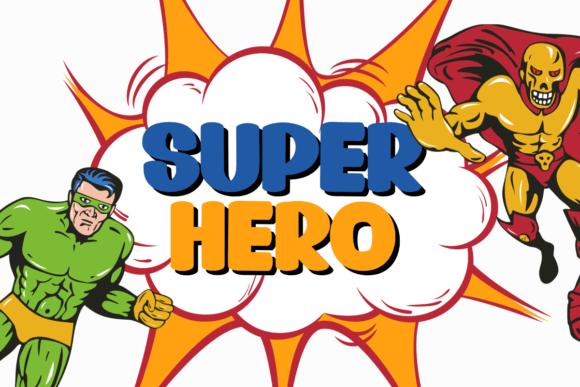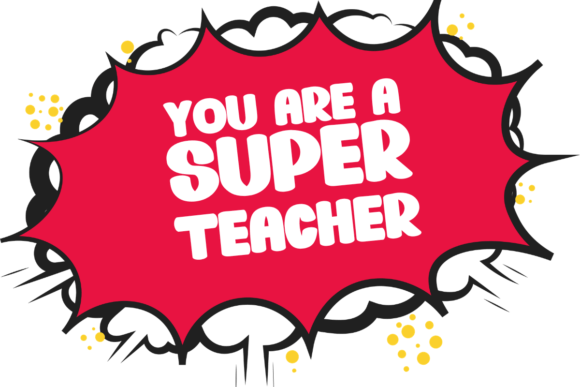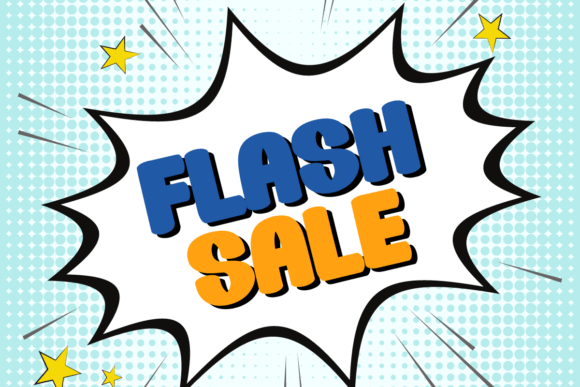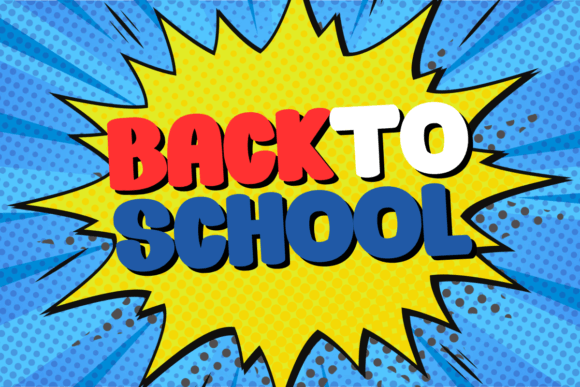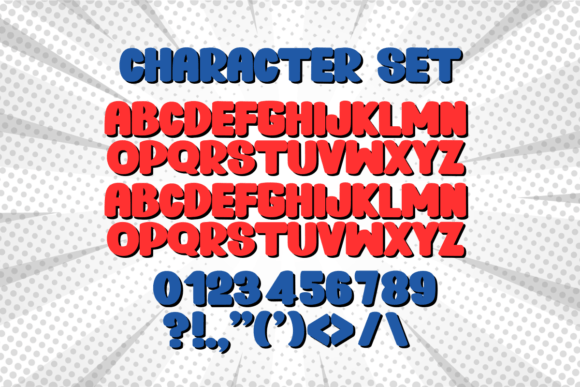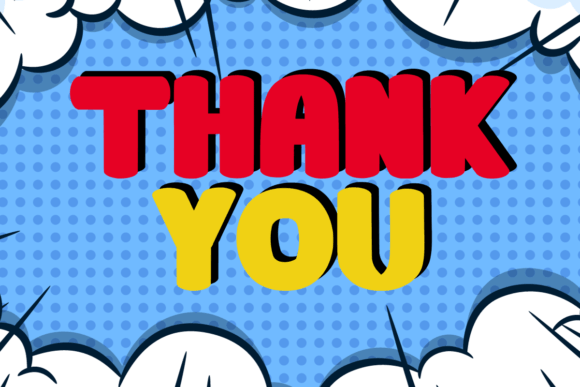
Introduction to Santa Comic Font
Santa Comic is a bold, fun and bold display font.
It’s great for conveying any message with confidence, authenticity, and charm Use it for comics, cartoons, magazine covers, games, or anything that needs a cheerful touch.
Key Features of Santa Comic Font
Why Choose Santa Comic Font?
Santa Comic Font offers exceptional quality and versatility, making it a valuable addition to your design toolkit. Whether you’re creating for personal projects or commercial use, Santa Comic Font delivers professional results.